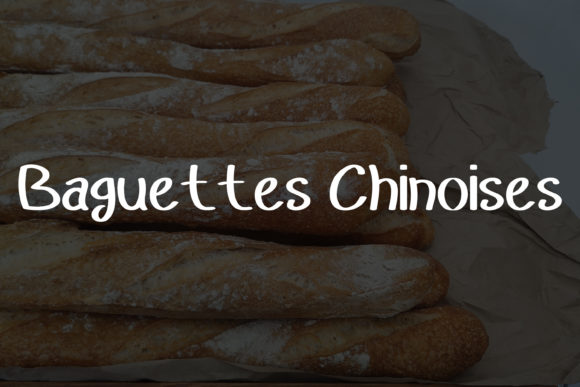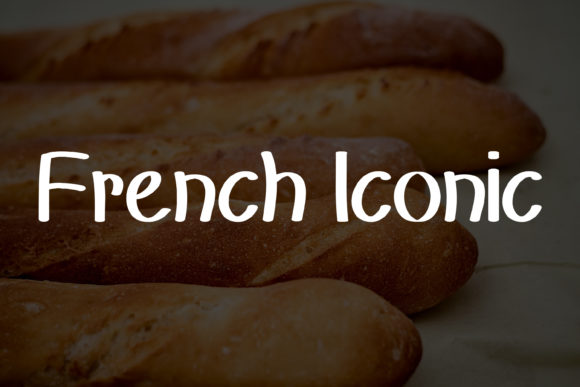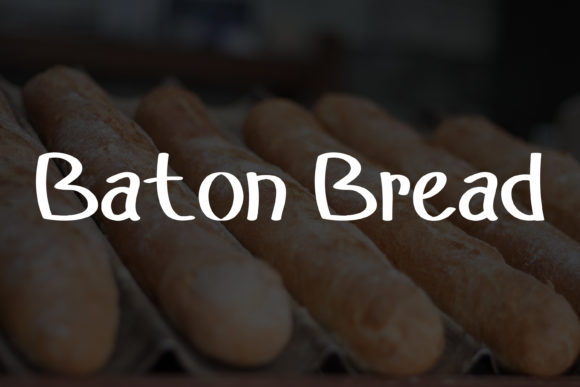
Introduction to Fresh Baguette Font
Have you ever been working on a creative project, pouring your heart and soul into it, only to realize that something is missing? That’s when you stumble upon the perfect design resource – a font that brings your vision to life. For me, that moment came when I discovered the Fresh Baguette Font.
This high-quality, handwritten font has a playful charm that’s hard to resist. With its friendly vibe and unique characters, it’s the perfect addition to any design project. Whether you’re working on a branding campaign, a social media post, or a blog article, the Fresh Baguette Font has the potential to elevate your creation to the next level.
Key Features of Fresh Baguette Font
- High-quality design resource ideal for creative projects, offering a unique and stylish touch.
- Characterized by its elegant and modern design, the Fresh Baguette Font is perfect for adding a touch of sophistication to any creative project.
Honest Review: Fresh Baguette Font
As a designer, I’m always on the lookout for high-quality design resources that can elevate my creative projects. The Fresh Baguette Font is one such resource that caught my attention.
What works well with this font is its unique and rustic charm. It’s perfect for creating a cozy and inviting atmosphere in your designs. The font is available for free download, which is a huge plus for designers on a budget.
- ✨ High-quality design: The Fresh Baguette Font is well-designed and looks great in various sizes and resolutions.
- ⚠️ Limited font styles: The Fresh Baguette Font only comes in a few styles, which might limit its versatility in certain designs.
- ⚠️ Not suitable for modern designs: The font’s rustic charm might not be the best fit for modern and sleek designs.
Overall, the Fresh Baguette Font is a great resource for designers who want to add a touch of warmth and coziness to their creative projects. While it has its limitations, it’s a high-quality font that’s definitely worth checking out.
Tips for Getting the Most Out of Fresh Baguette Font
To get the most out of the Fresh Baguette Font, use it in conjunction with other design resources, such as graphics and images. Experiment with different font sizes, colors, and styles to create visually appealing designs.
The Fresh Baguette Font is commonly used in various creative projects, including:
- Food blogs and recipe websites.
- Restaurant menus and signage.
- Wedding invitations and stationery.
Is the Fresh Baguette Font suitable for print or digital use?
The Fresh Baguette Font is designed to be versatile and suitable for both print and digital use. Its high-quality design and transparent background make it perfect for a wide range of applications, from magazine headlines to web headers, and from business cards to digital displays.